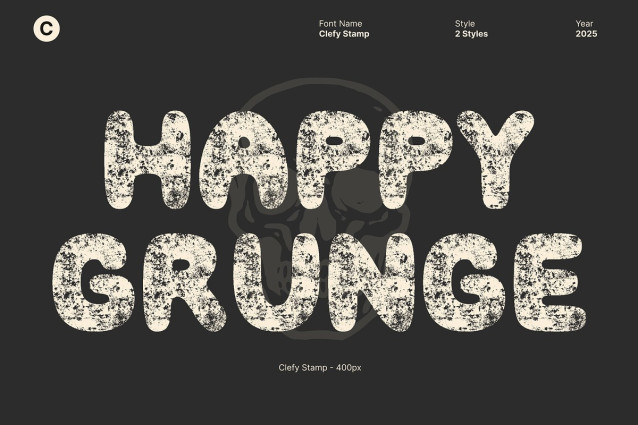
Clefy Stamp Font
Clefy Stamp Font is a rounded bubble display font that radiates a sense of fun, warmth, and nostalgia. Its soft curves and smooth shapes create a friendly, approachable personality, while the stamp texture introduces a handcrafted, vintage charm. The result is a typeface that feels both playful and timeless—perfect for designs that aim to evoke retro joy and creative energy.
tamp Texture for Handcrafted Character The stamp effect adds depth and authenticity to this font, giving each letter a slightly imperfect, textured feel that enhances its vintage appeal. This tactile quality makes it stand out in both digital and print formats, lending designs a touch of organic personality and nostalgic warmth.
Perfect for Retro and Creative Designs Ideal for event posters, music covers, packaging, or creative campaigns, this font captures the carefree spirit of the past while maintaining a modern, versatile edge. Its rounded forms and dynamic texture make it perfect for projects that aim to be both eye-catching and emotionally resonant.
Playful, Expressive, and Full of Personality Whether used for bold titles or vibrant branding, this font infuses every project with retro playfulness and visual warmth. It’s the perfect choice for designers who want to combine vintage aesthetics with creative expression, ensuring every design feels lively, nostalgic, and full of charm.